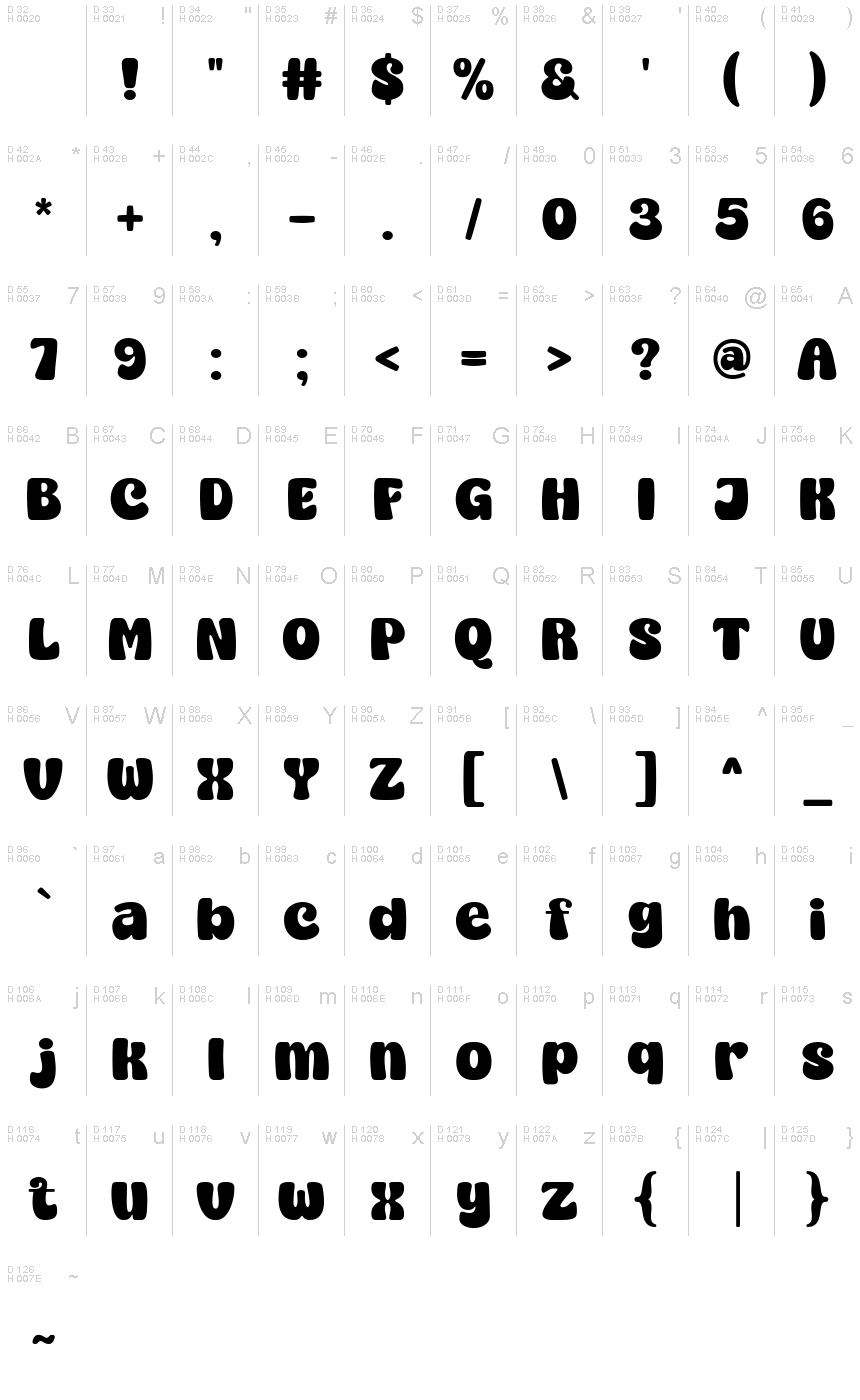
Super Chunky
Super Chunky stands out with its robust and full-bodied character, a creation by fsuarez913 that's all about making a bold visual statement. This display typeface boasts thick, heavy letterforms that command attention and assert their presence on the page or screen. With its undeniable thickness, Super Chunky radiates confidence and strength.
Ideal for headers, posters, and any design needing a punch of personality, Super Chunky is perfect for messages that can't afford to be ignored. It's not just a font; it's an exclamation point in typographic form, ready to elevate branding, advertising campaigns, and creative projects with its audacious charm.
Introducing Super Chunky: The Font That Shouts Without Saying a Word